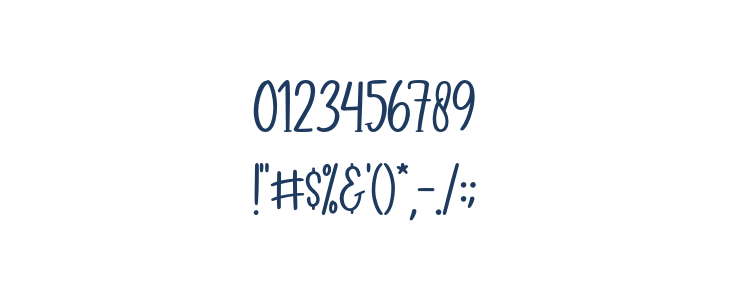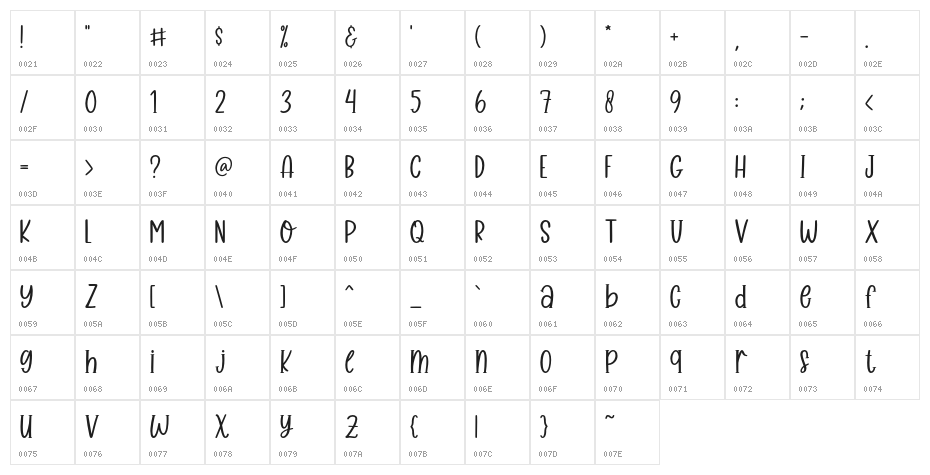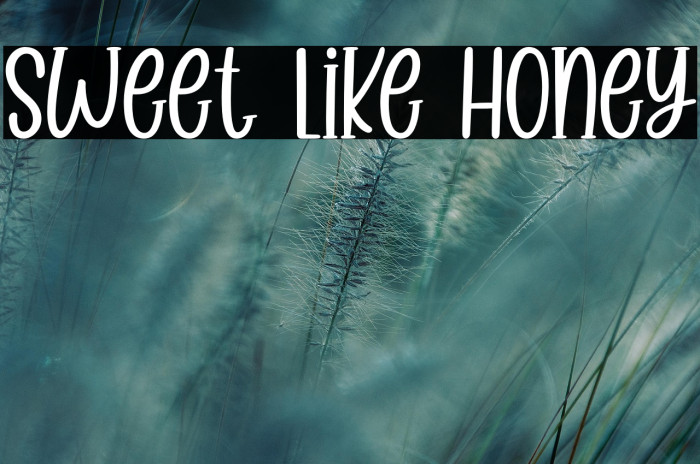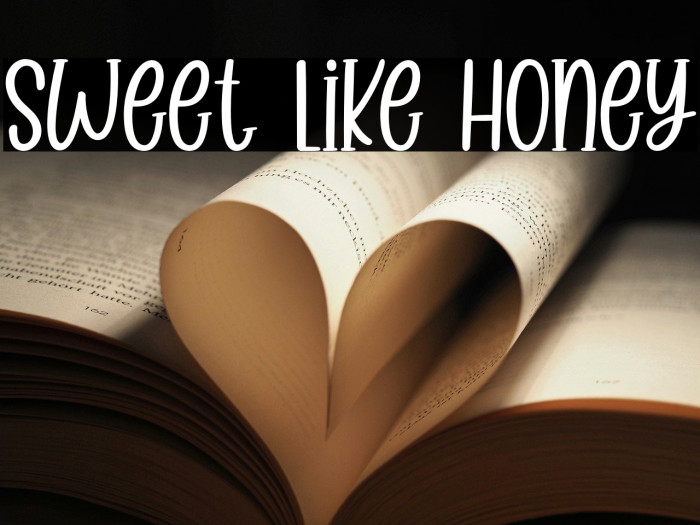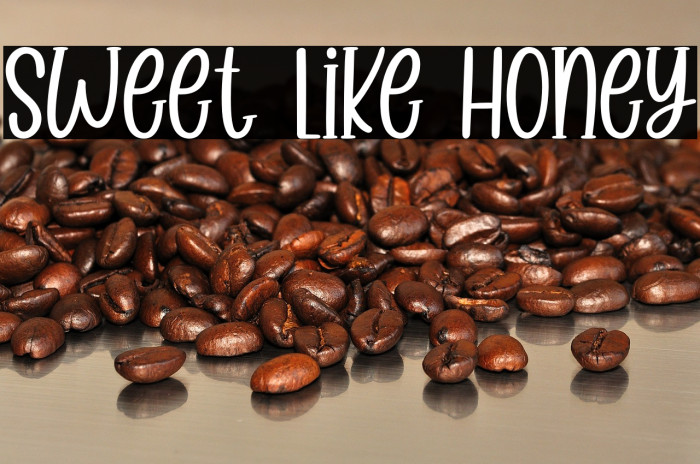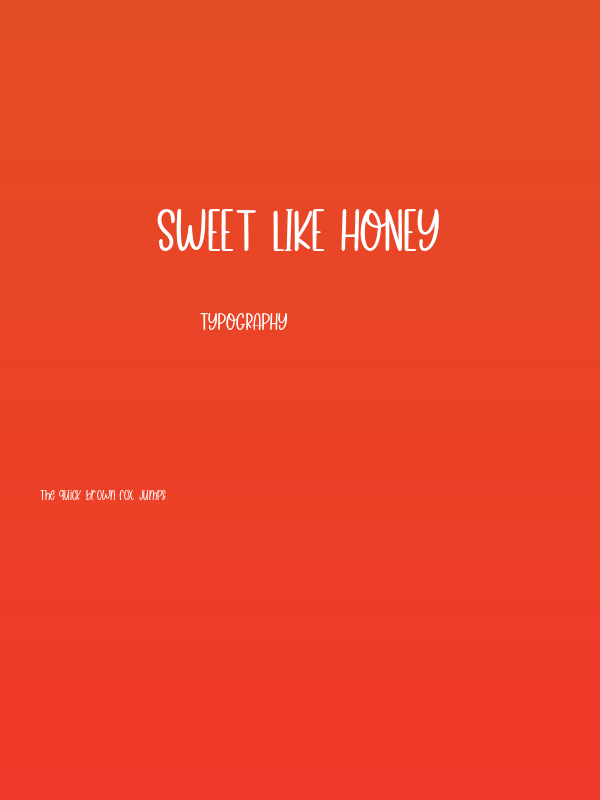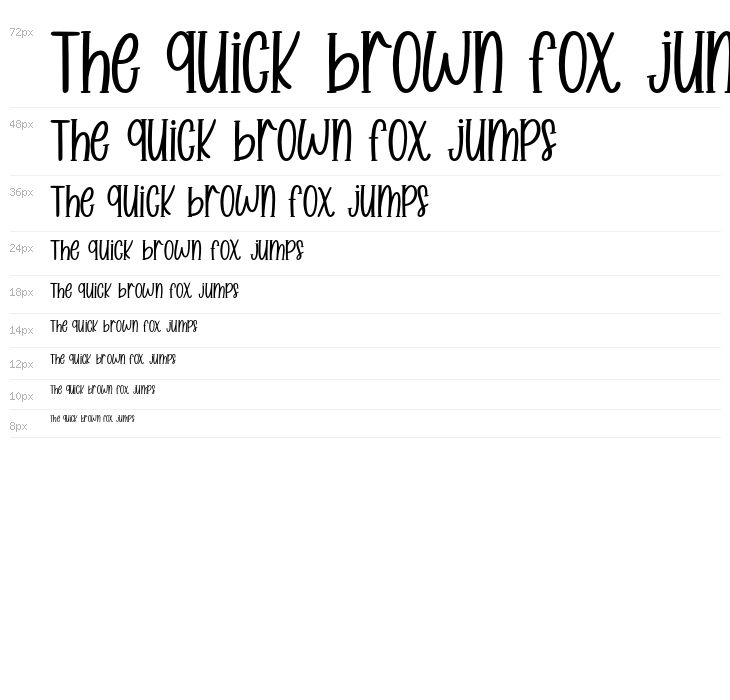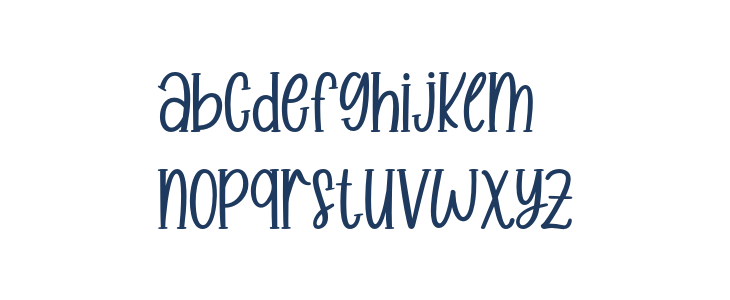
Sweet Like Honey Font
Sweet Like Honey Description
This playful and whimsical font features a handwritten style with a smooth, flowing appearance. The characters are slightly elongated with a gentle curve, giving them a friendly and approachable feel. The uppercase letters maintain a consistent height, while the lowercase letters exhibit a charming irregularity that adds to the font's personality. The numbers and special characters are designed to match the overall aesthetic, ensuring a cohesive look across all text. This font is perfect for projects that require a touch of fun and creativity, such as invitations, greeting cards, or playful branding materials.
| Overall Style | Whimsical |